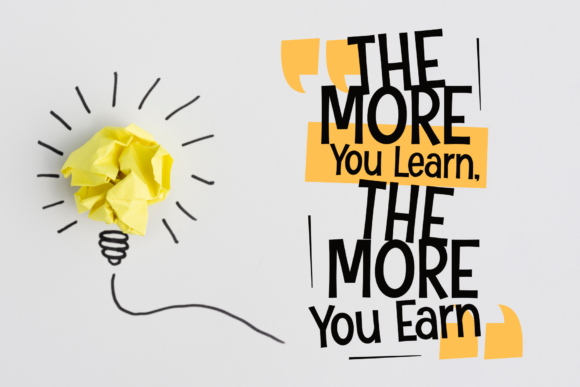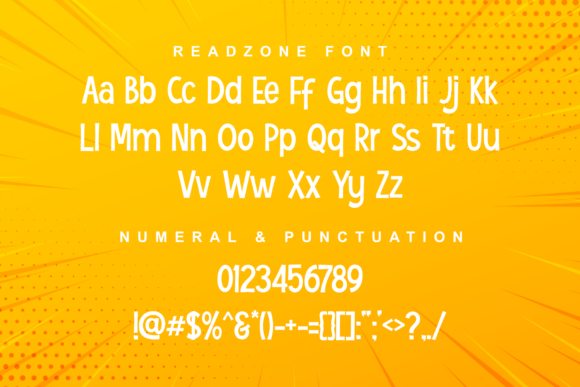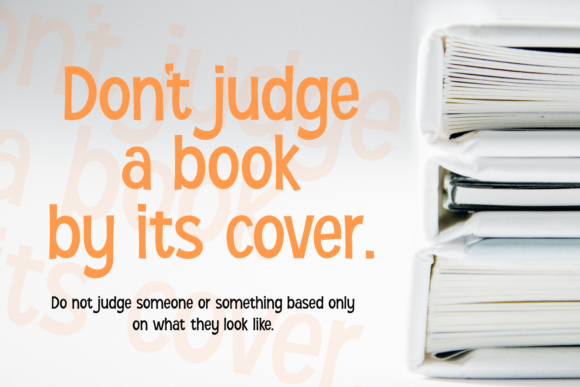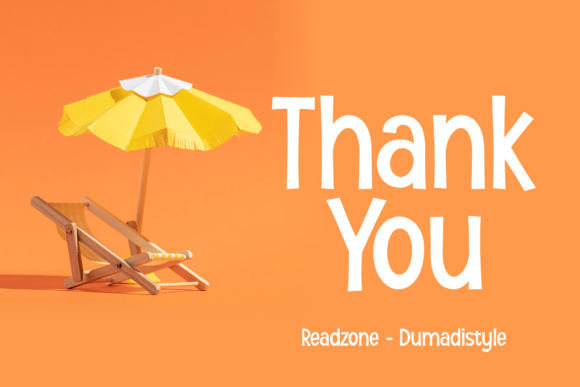
Introduction to Readzone Font
Have you ever stared at a blank canvas, struggling to find the perfect font to bring your creative project to life? We’ve all been there – the blank page staring back at us, taunting us to make a move. But what if I told you that there’s a game-changing font out there, waiting to give your design a unique touch?
Enter the Readzone Font – a playful and cool display font that’s perfect for web designs, business cards, and any other creative project that needs a little something extra. This versatile font is a valuable resource for designers, offering a high-quality, free download that’s sure to elevate your designs to the next level.
Key Features of Readzone Font
- High-quality font design for creative projects, ideal for use in design resources and digital art.
- Designed with a clean and modern aesthetic, making it perfect for use in logos, typography, and other creative applications.
- Unique characteristics: The Readzone Font features a unique blend of modern and vintage elements, making it a standout choice for designers looking for a distinctive font.
Honest Review: Readzone Font
I recently came across the Readzone Font, a free download that I was excited to dive into for my next creative project. As a designer, I’m always on the lookout for high-quality design resources to elevate my work.
Here’s what I like about Readzone Font: ✨ It’s incredibly versatile, making it perfect for a variety of projects, from digital displays to print materials. ✨ The font is available in several weights and styles, giving me plenty of options to experiment with. ✨ The transparent background is a nice touch, allowing me to easily integrate the font with other design elements.
However, there are a few limitations to consider: ⚠️ The font may not be suitable for small text sizes, as it can appear blurry. ⚠️ Some users may find the font’s style too modern or trendy, which may not appeal to those looking for a more classic look.
Overall, I’m impressed with the Readzone Font. It’s a solid addition to any designer’s toolkit, and I appreciate the effort that went into creating such a high-quality design resource. If you’re looking for a versatile font for your next creative project, I’d definitely recommend giving Readzone Font a try.
The Readzone Font is a high-quality design resource that can be downloaded for free. This font is perfect for any creative project that requires a unique and elegant touch. With its transparent background, it can be easily combined with other design elements to create a stunning visual effect.
Tips for Getting the Most Out of Readzone Font
Here are a few tips for getting the most out of the Readzone Font:
- Use it sparingly to create a bold and eye-catching visual effect.
- Combine it with other design elements to create a unique and elegant look.
- Experiment with different font sizes and styles to create a dynamic visual effect.
The Readzone Font is perfect for a variety of creative projects, including:
- Designing business cards or brochures.
- Creating social media graphics or advertisements.
- Designing a website or blog.